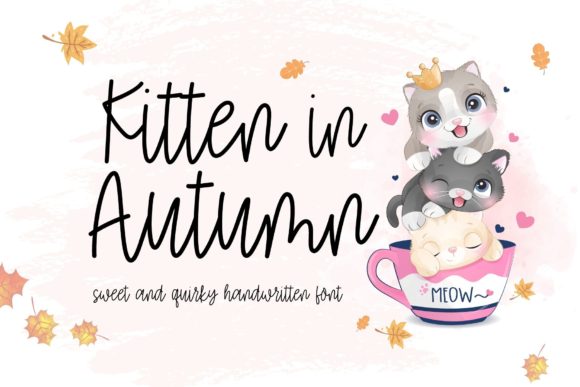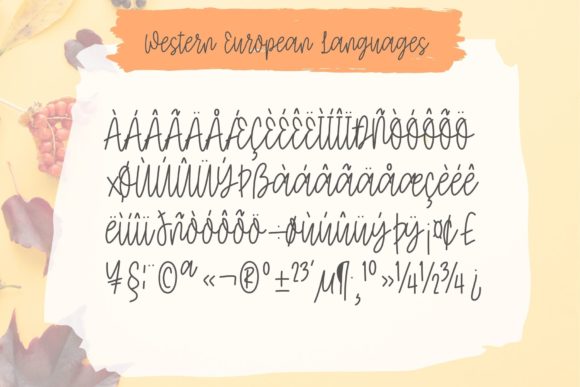
About Kitten in Autumn Font
Kitten in Autumn is a cute and friendly handwritten font. Its distinct and well rounded letters make this font a masterpiece. Fall in love with its incredibly versatile style and use it to create spectacular designs!